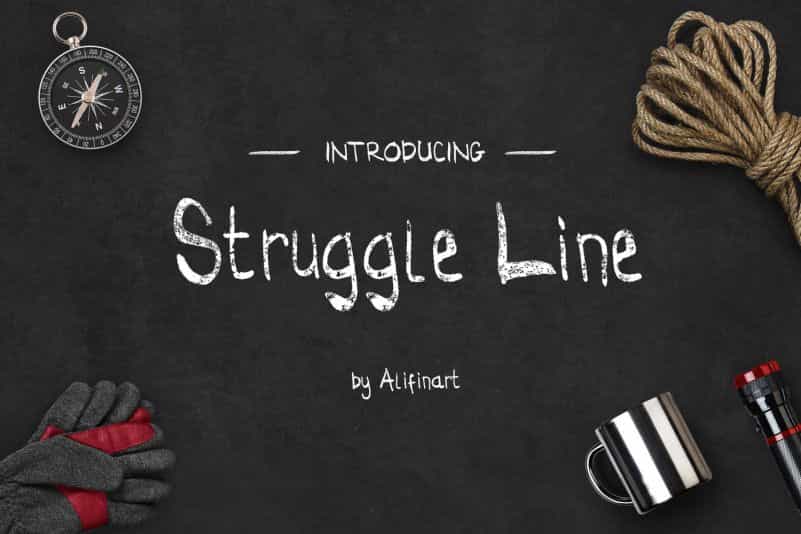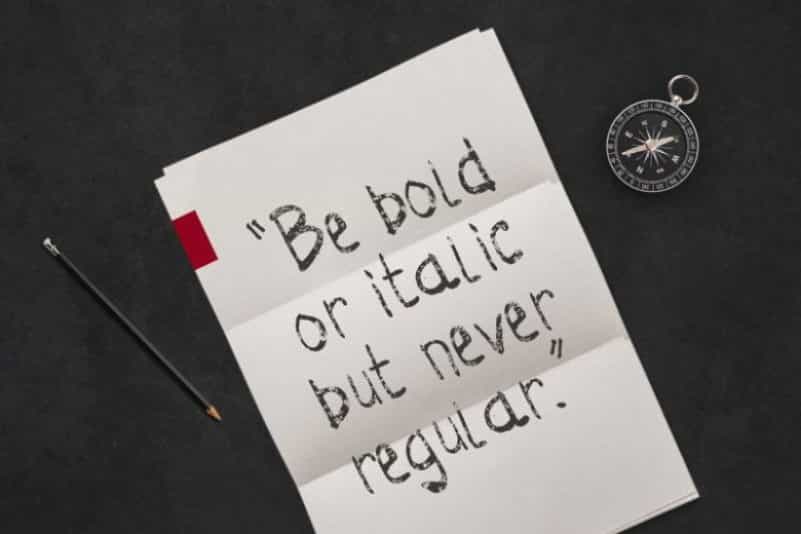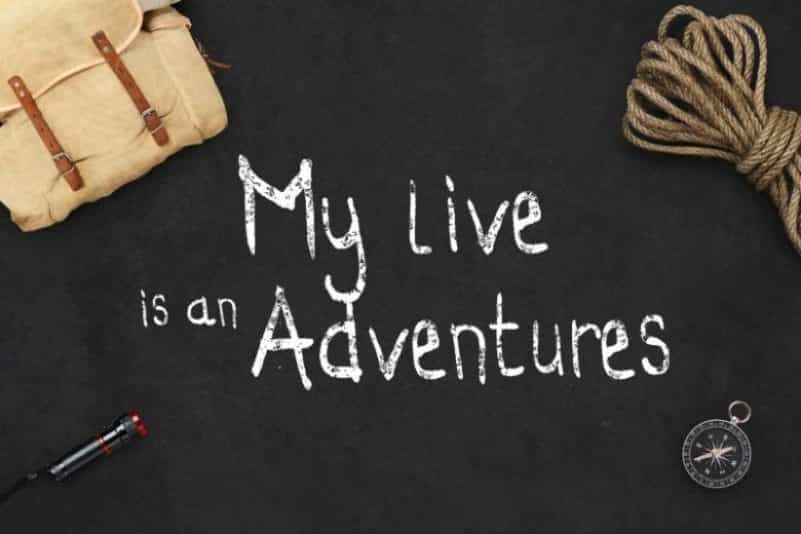
Struggle Line Font has both the upper and lowercase characters, punctuation glyphs, numerals, web font and it also supports international languages. Besides, you also have the option of using a different style for some lower case characters. They are ideal for logo marks, typographic quotes over photos and book covers as well as packaging design.